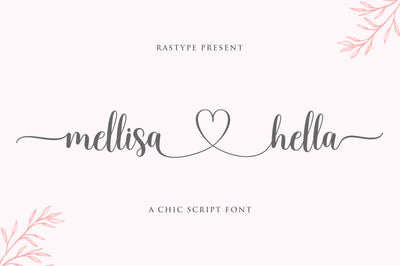
Melissa Hella | Lovely Font
Melissa Hella is a beautiful modern script font that's perfect for wedding invitations, t-shirts, branding, and other romantic projects.
The font includes OpenType features with alternative styles, ligatures, and multiple language support.